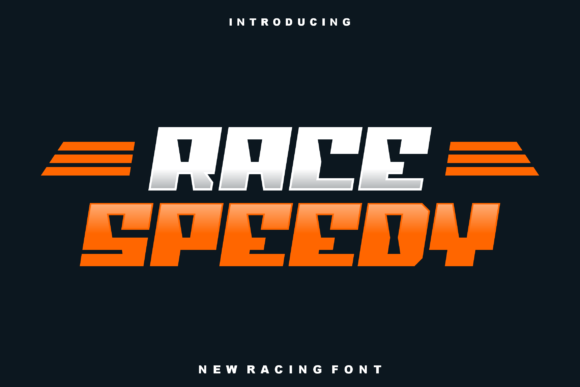
**Unlock the Power of Speed and Clarity with Race Speedy Font**
Prepare to be captivated by Race Speedy, an ultra-bold and authentic display font that will leave an unforgettable mark on your designs. Its sharp edges and dynamic curves exude a sense of urgency and precision, making it the perfect choice for any project that demands attention.
**Unleash the True Essence of Your Brand**
Race Speedy's bold and commanding presence makes it an ideal font for logos, where it will establish your brand as a force to be reckoned with. Its versatility extends to t-shirt printing, where it will transform ordinary designs into eye-catching statements. Whether you're creating posters or packaging, Race Speedy adds an instant touch of sophistication and modernity.
**Make a Lasting Impression with Every Stroke**
This display font is designed to make a statement. Its unique character set, meticulously crafted by the talented kalingga.albert, ensures that your designs will stand out from the crowd. The font's bold strokes and clean lines create a visual impact that will leave a lasting impression on your audience.
**Typeface That Speaks Volumes**
Beyond its visual appeal, Race Speedy carries a powerful message. Its name, inspired by the adrenaline rush and excitement of racing, embodies the font's ability to evoke a sense of urgency and speed. Its dynamic curves and sharp angles suggest a forward-thinking mindset, making it the perfect choice for businesses and individuals looking to make a bold statement.
**Experience the Thrill of Speed and Power**
Join the race to success with Race Speedy Font. Its unique combination of boldness, authenticity, and versatility makes it an essential tool for any designer seeking to make a lasting impact. Whether you're crafting logos, designs, or marketing materials, Race Speedy will empower your creations with an unstoppable energy that will leave your audience breathless.